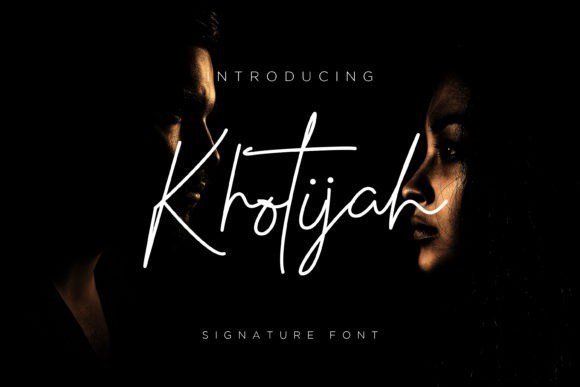
Khotijah Signature Font
Introducing Khotijah Font– a new modern signature with elegant lines make this font perfect for your personal branding and any awesome project.
Such as : logos, invitations, stationery, wedding designs, social media posts, advertisements, product designs, labels, photography, product packaging, watermarks, special events and much more !